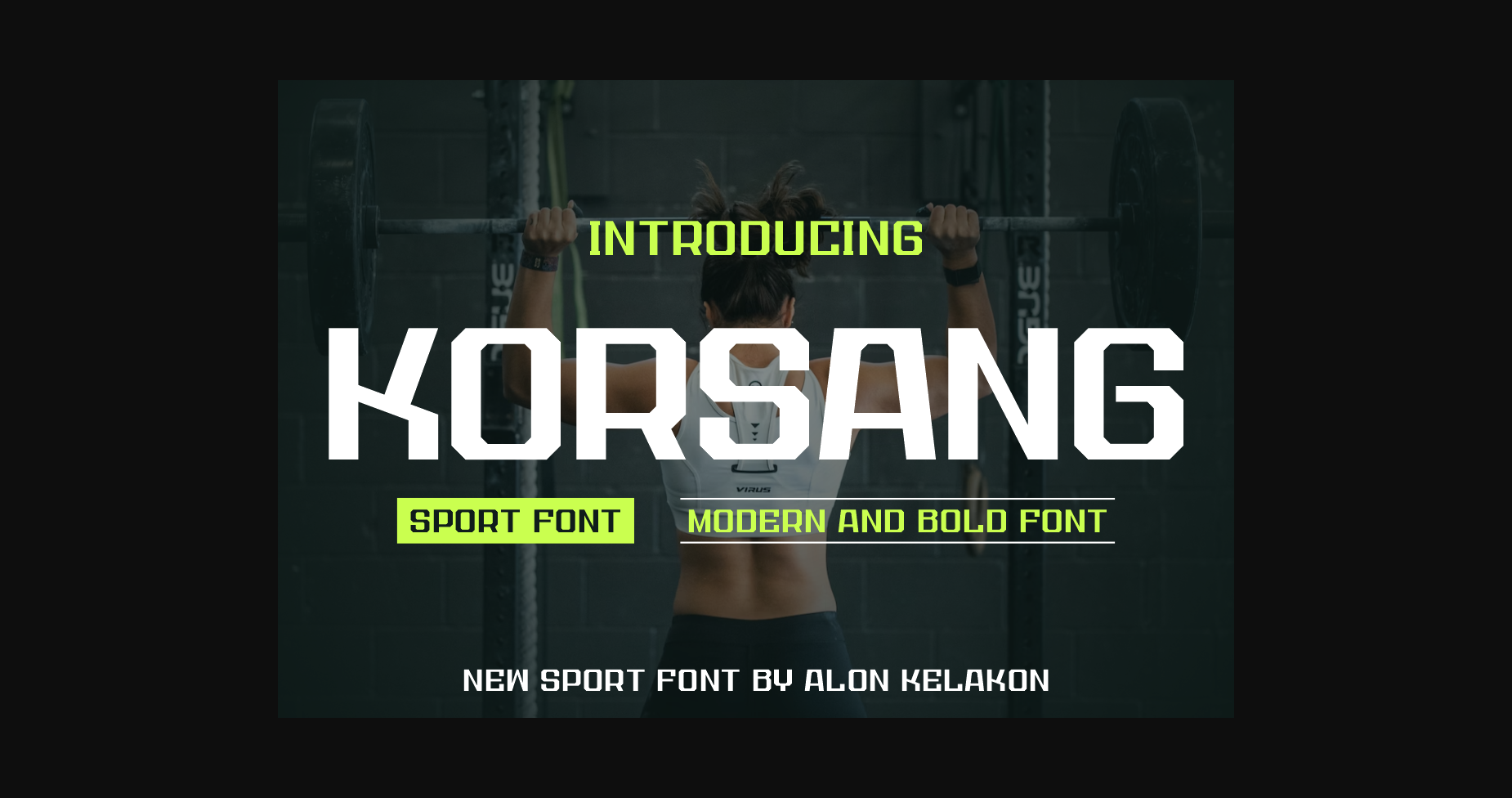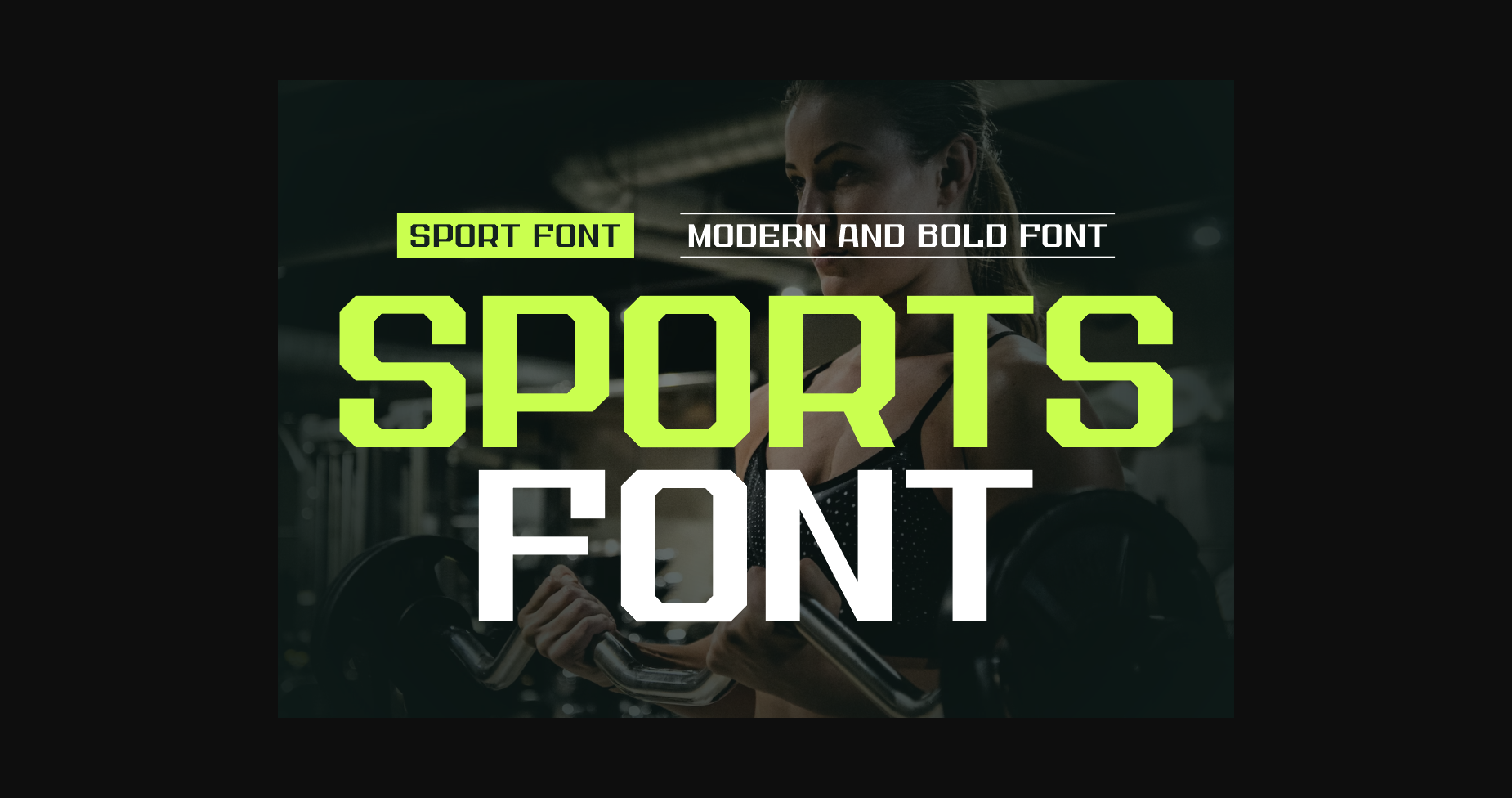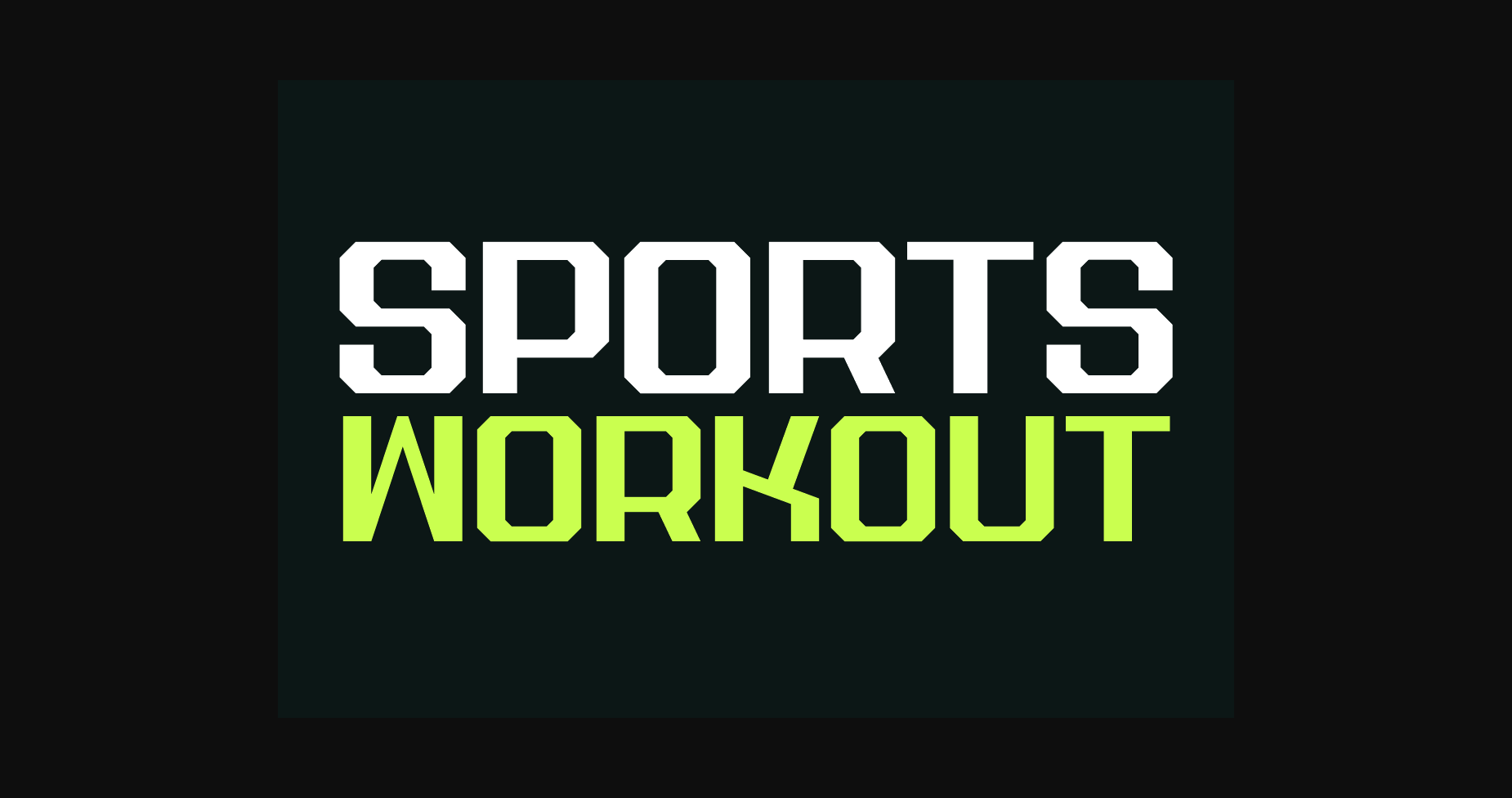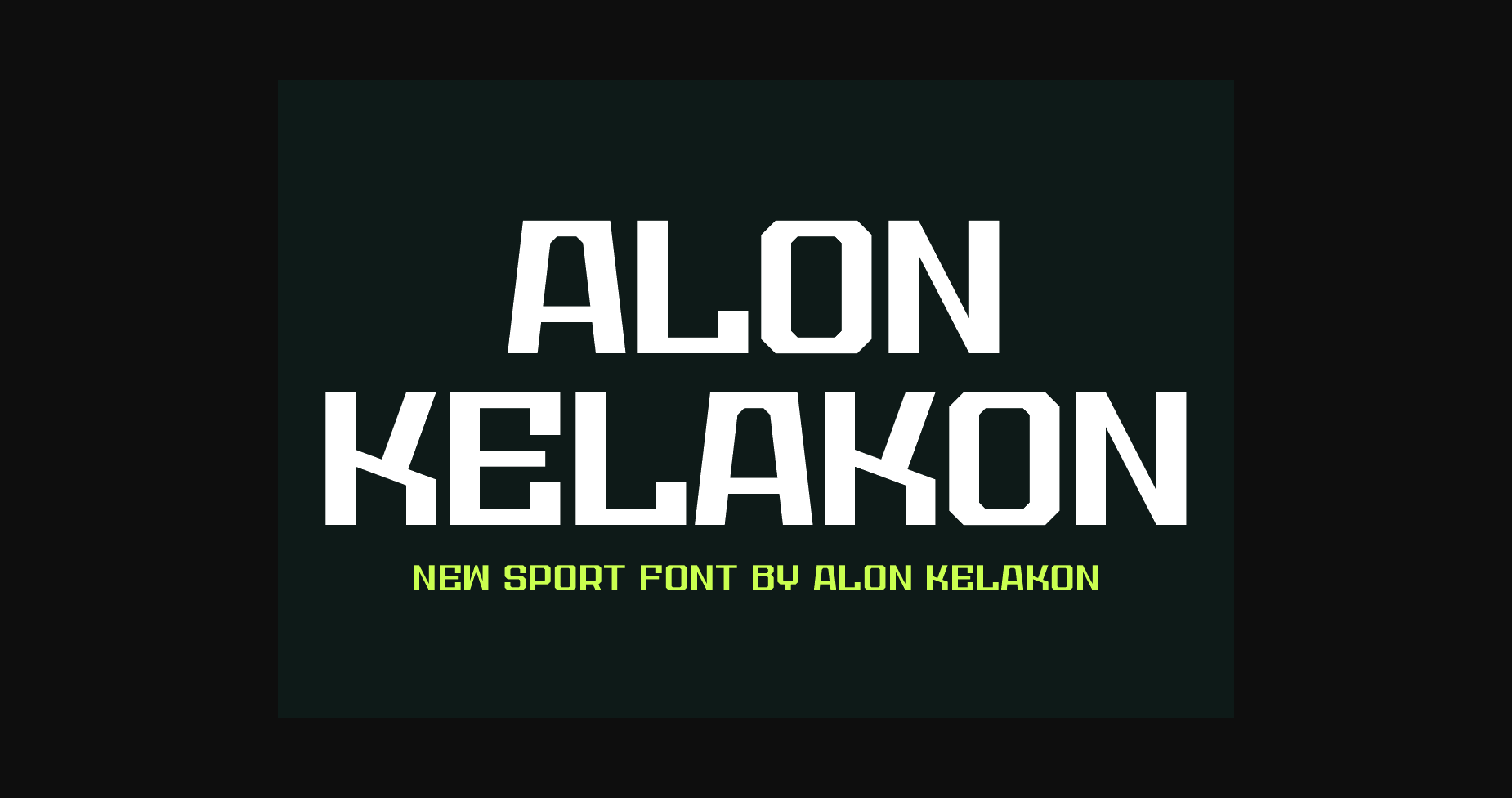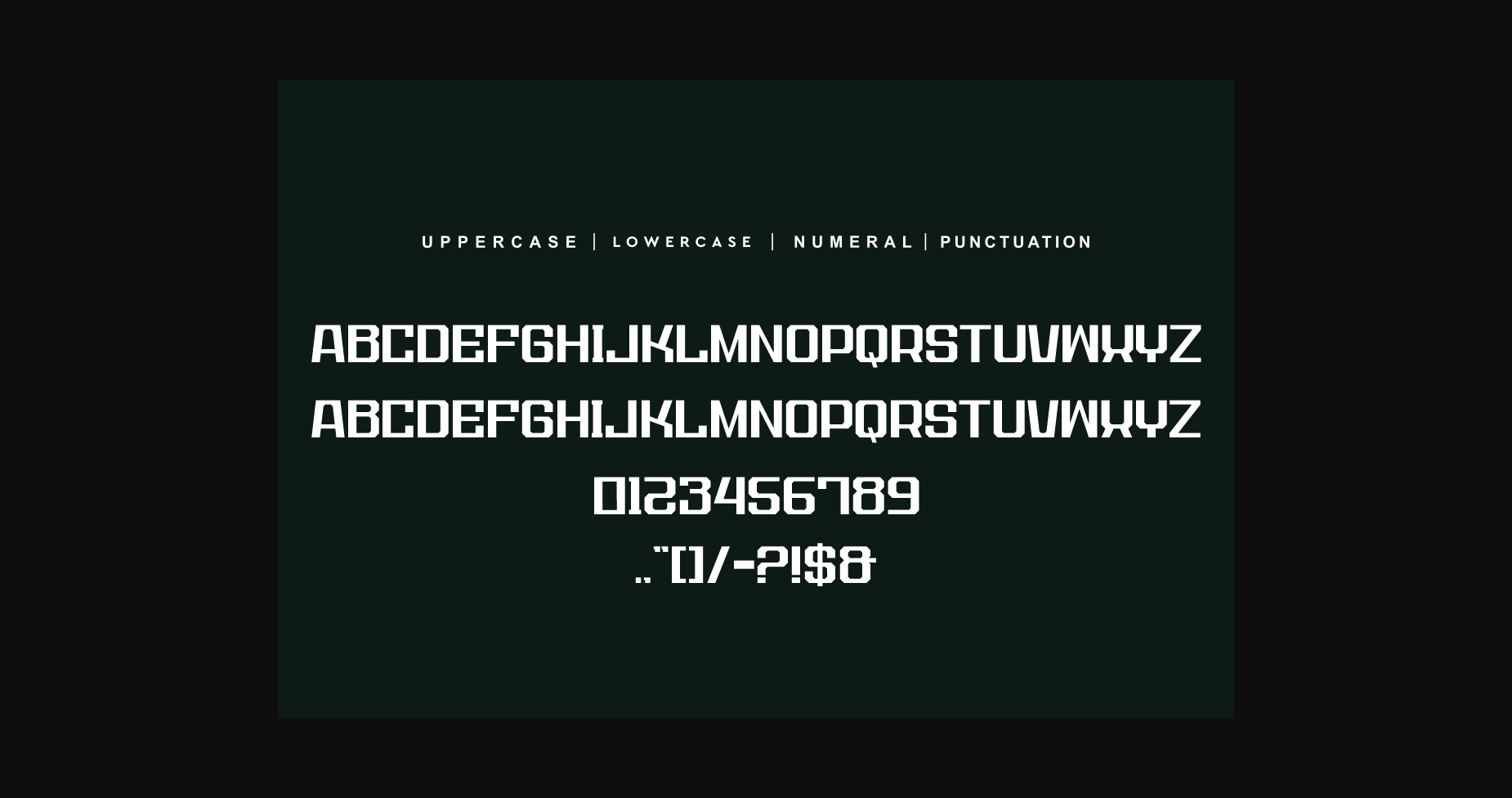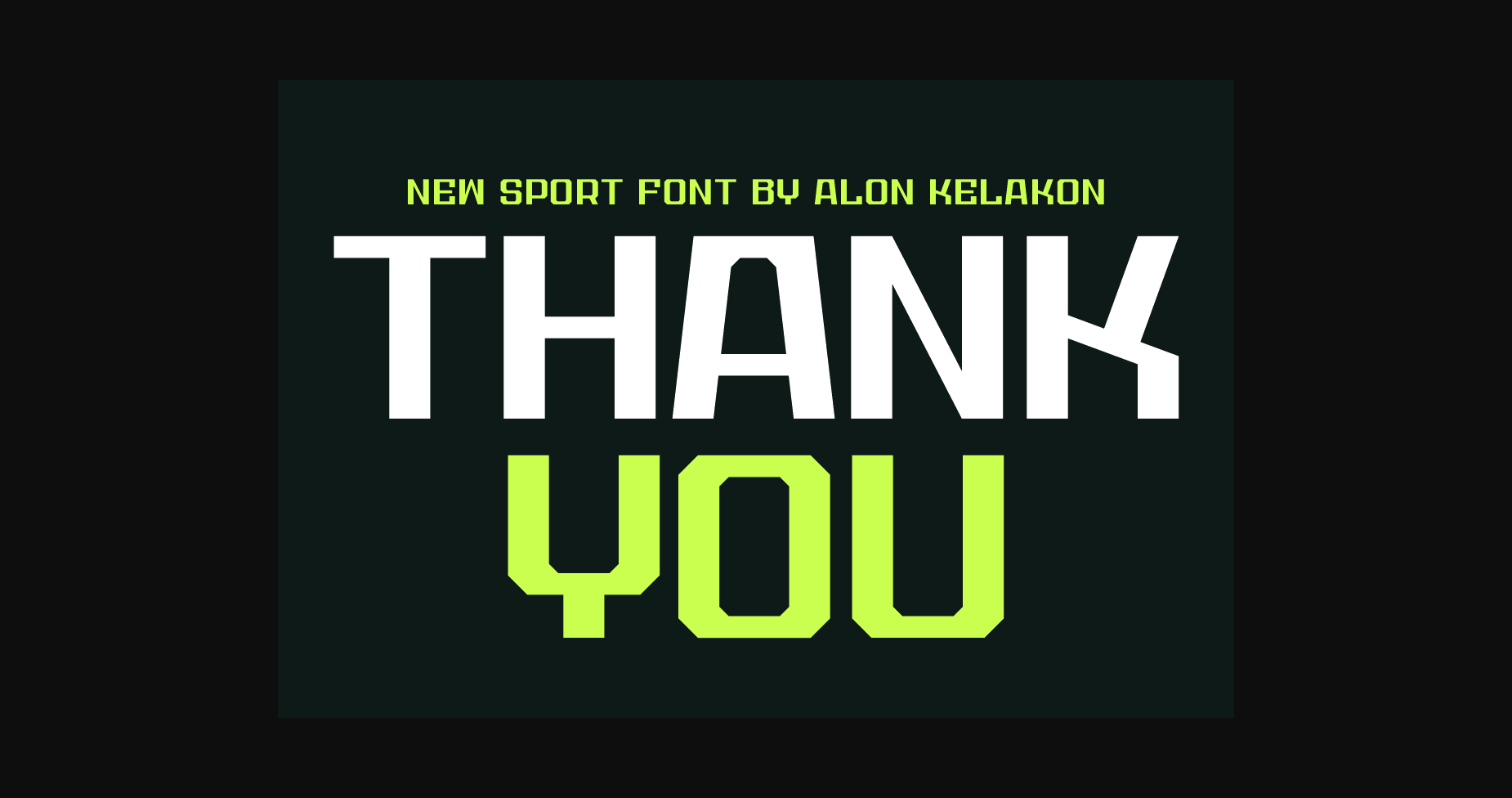
Korsang Font
About Korsang Font
Introducing Korsang Font, a sleek and modern sans-serif typeface that exudes contemporary elegance. With its clean lines and balanced letterforms, this font brings a sense of simplicity and sophistication to your designs.
Korsang Font is perfect for a wide range of projects, from branding and advertising to editorial layouts and web design, offering versatility and legibility. Elevate your typography with the refined charm of Korsang Font sans-serif.